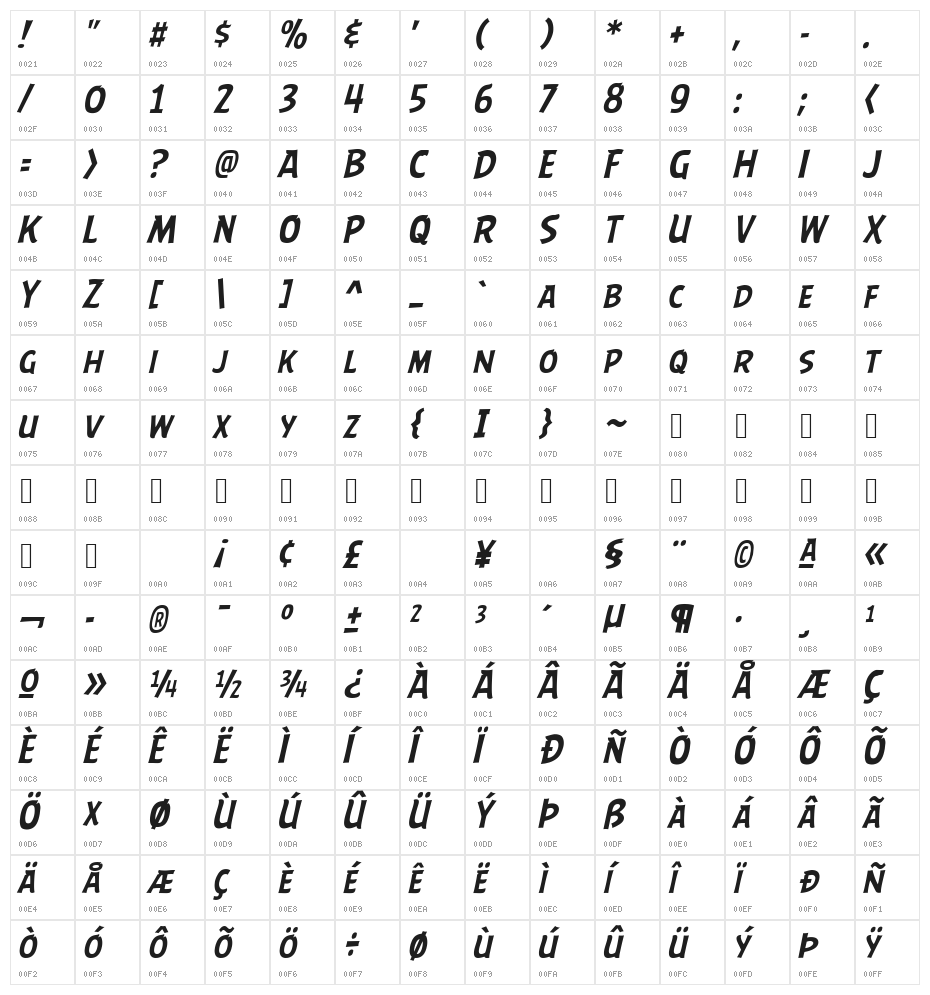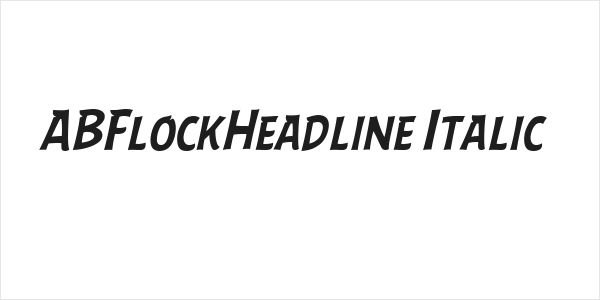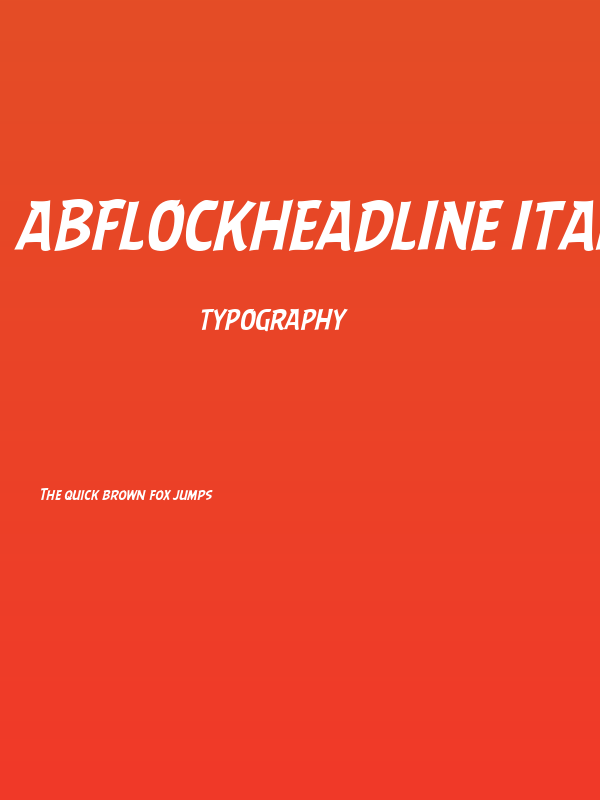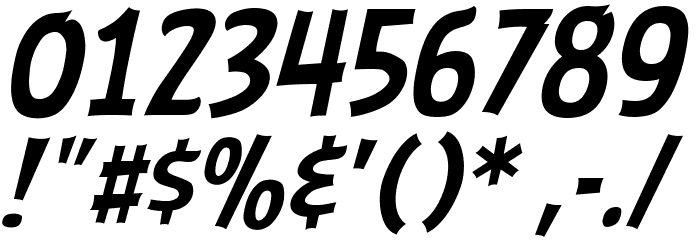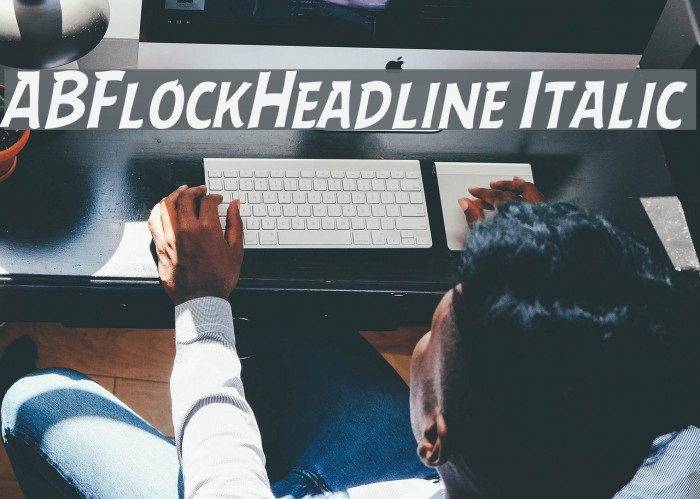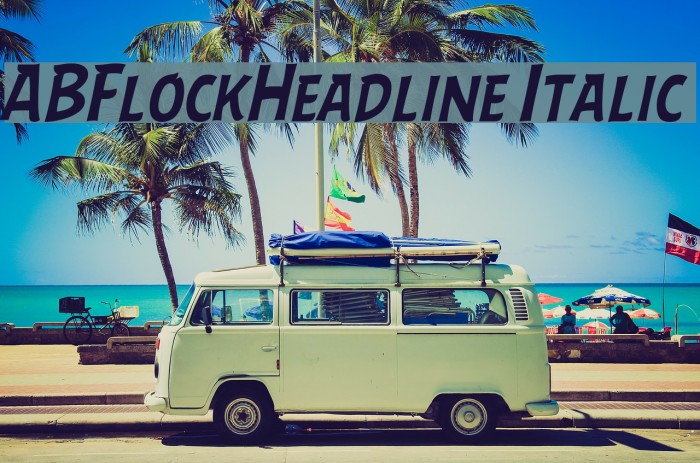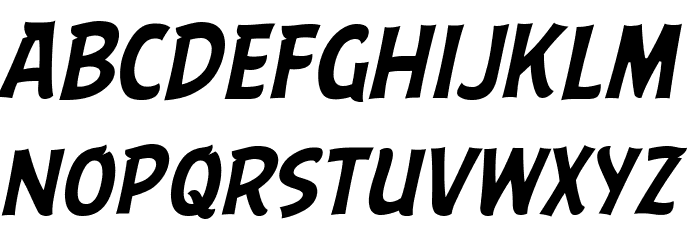
ABFlockHeadline Italic Font
ABFlockHeadline Italic Description
This font features a bold and dynamic style with a distinct italic slant, giving it a sense of movement and energy. The characters are robust and slightly condensed, with sharp angles and clean lines that enhance readability while maintaining a strong visual impact. The uppercase and lowercase letters are consistent in style, with a slight variation in stroke width that adds to the overall boldness. The numerals and special characters are designed to match the assertive and modern aesthetic, making them suitable for a variety of applications.
| Proposed Projects | Ideal for headlines, posters, branding, and advertising materials where a strong and energetic presence is desired. |